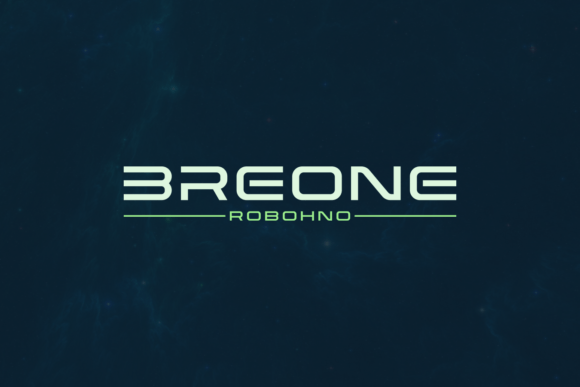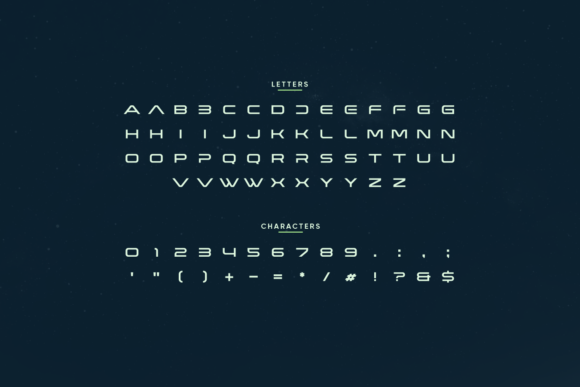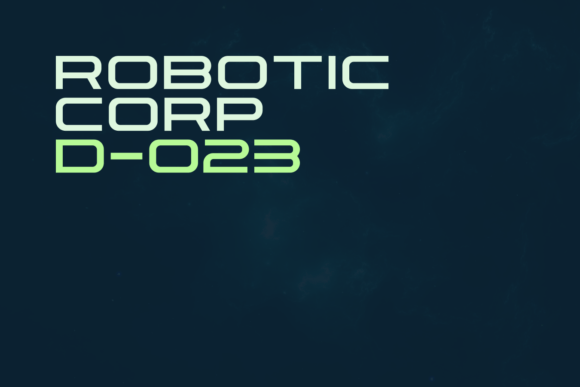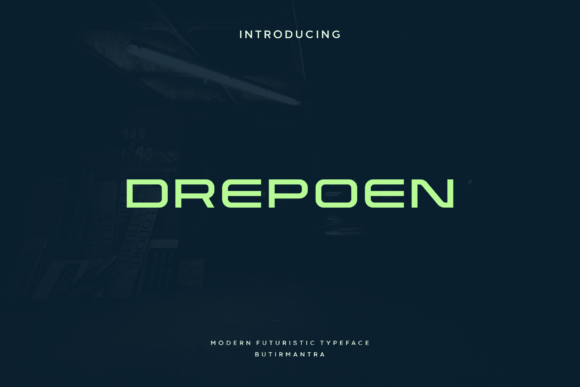
Drepoen Font: Elevate Your Designs with a Modern Sans-Serif Marvel
In the world of typography, a font can make all the difference in bringing your creative vision to life. Introducing Depoen, a modern and cool sans-serif font that’s poised to become your new favorite. With its sleek design and versatility, Depoen has the potential to elevate each of your creative ideas to new heights.
The Birth of Depoen: A Masterful Design
Depoen is the brainchild of talented designers who sought to create a font that would seamlessly blend style, functionality, and legibility. The result is a sans-serif font that’s not only visually stunning but also highly adaptable. Whether you’re working on a branding project, crafting a website, or creating engaging social media content, Depoen is the perfect companion to help you convey your message with clarity and sophistication.
What Makes Depoen Stand Out?
So, what sets Depoen apart from other fonts in the sans-serif family? Here are a few key features that make it a standout:
- Clean Lines and Curves: Depoen boasts clean lines, smooth curves, and a well-balanced structure, making it a joy to read and a pleasure to look at.
- Versatility: This font is incredibly versatile, allowing you to use it across various design projects, from digital media to print materials.
- Legibility: Depoen’s clear and concise letterforms ensure that your message is conveyed with precision, making it perfect for body text, headings, and titles.
- Modern Aesthetic: With its modern sans-serif design, Depoen adds a touch of sophistication and elegance to any design project.
Unlocking Creative Potential with Depoen
Depoen is more than just a font – it’s a creative tool designed to help you unlock your full potential. Here are a few ways you can leverage Depoen to take your designs to the next level:
- Branding and Identity: Use Depoen to create a cohesive brand identity that exudes professionalism and style.
- Web Design: Depoen’s clean design and legibility make it an excellent choice for web fonts, ensuring a seamless user experience.
- Print Materials: From brochures to business cards, Depoen can elevate your print materials with its modern and sophisticated aesthetic.
- Social Media Graphics: Make your social media graphics stand out with Depoen’s unique and eye-catching design.
Why Choose Depoen?
With so many fonts available, why choose Depoen? Here are a few compelling reasons:
- Unique Design: Depoen’s distinctive design sets it apart from other sans-serif fonts, ensuring your designs stand out.
- Ease of Use: This font is incredibly easy to use, making it perfect for designers of all skill levels.
- High-Quality: Depoen is a high-quality font that’s been meticulously crafted to deliver exceptional results.
In conclusion, Depoen is a modern and cool sans-serif font that’s poised to become a staple in every designer’s toolkit. Its unique design, versatility, and legibility make it the perfect choice for a wide range of design projects. Whether you’re a seasoned designer or just starting out, Depoen is an excellent addition to your font library. So why wait? Unlock your creative potential with Depoen and take your designs to new heights!